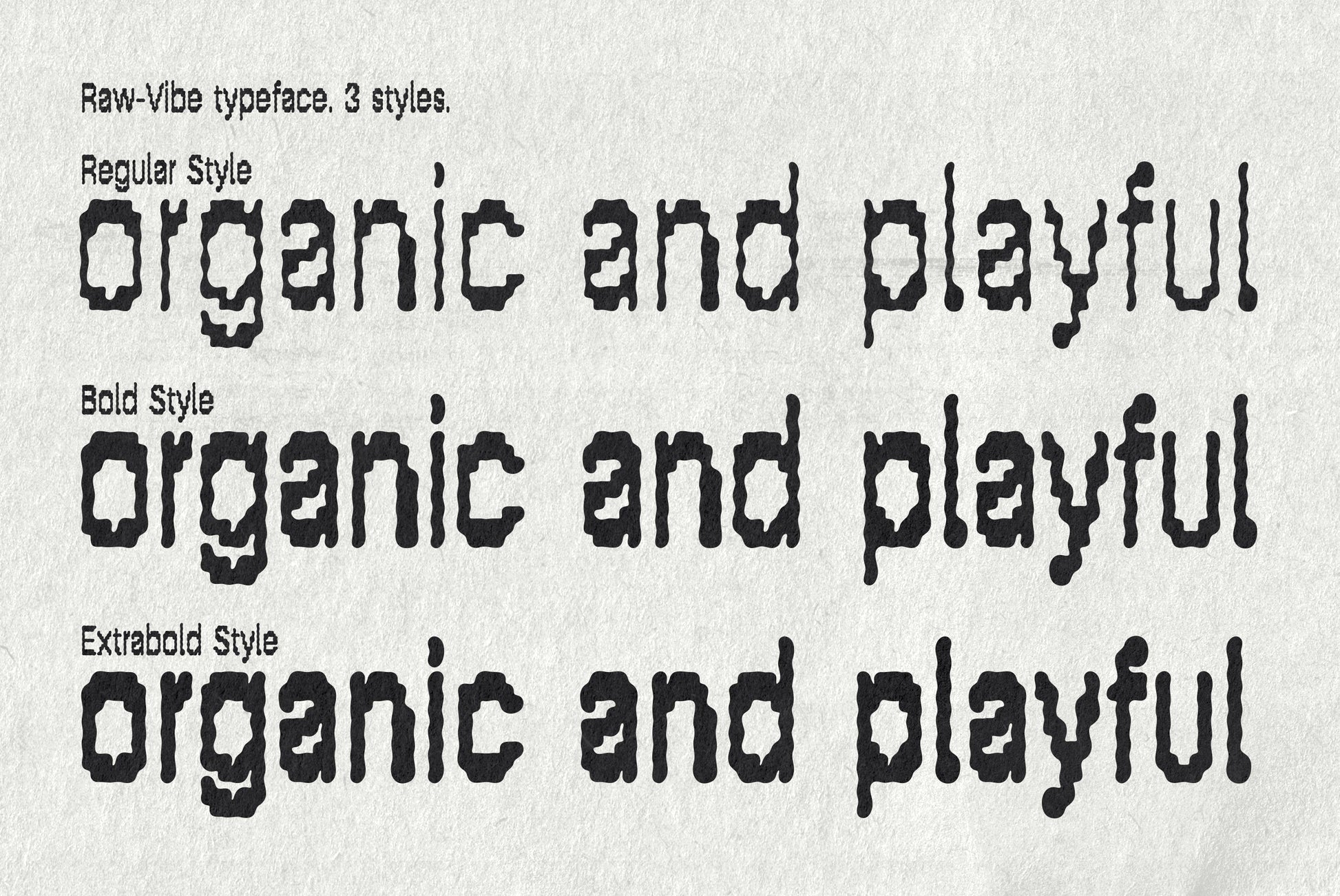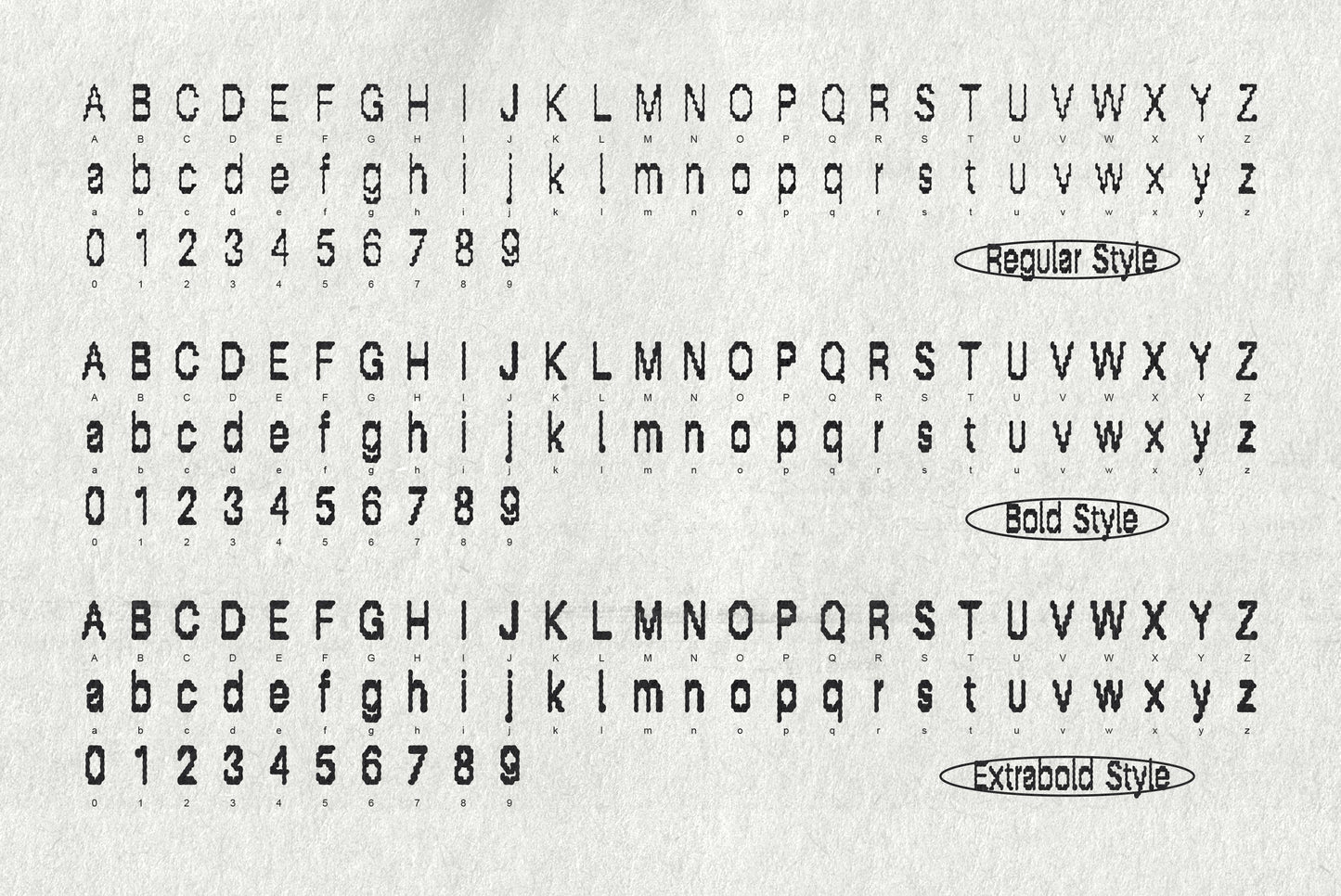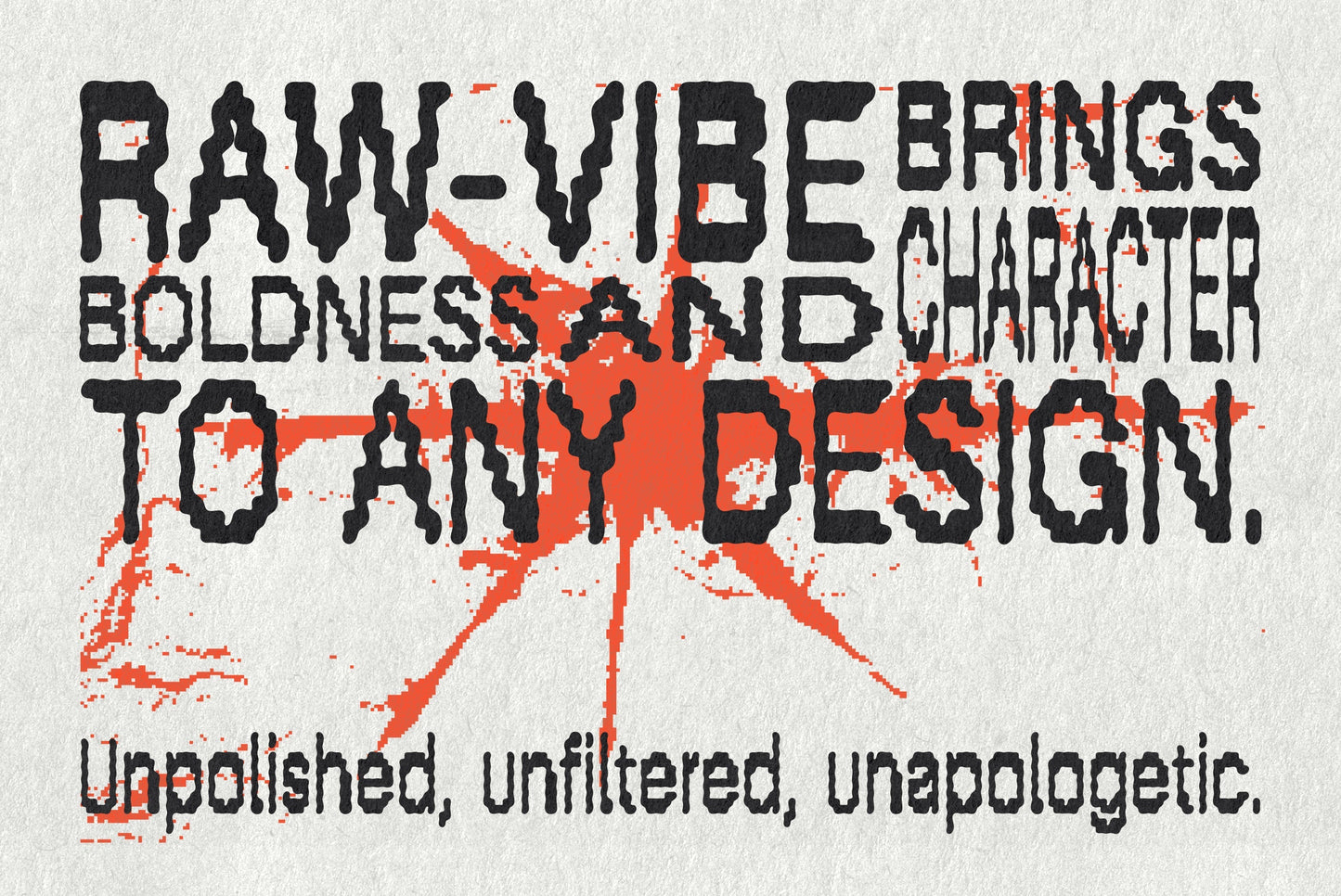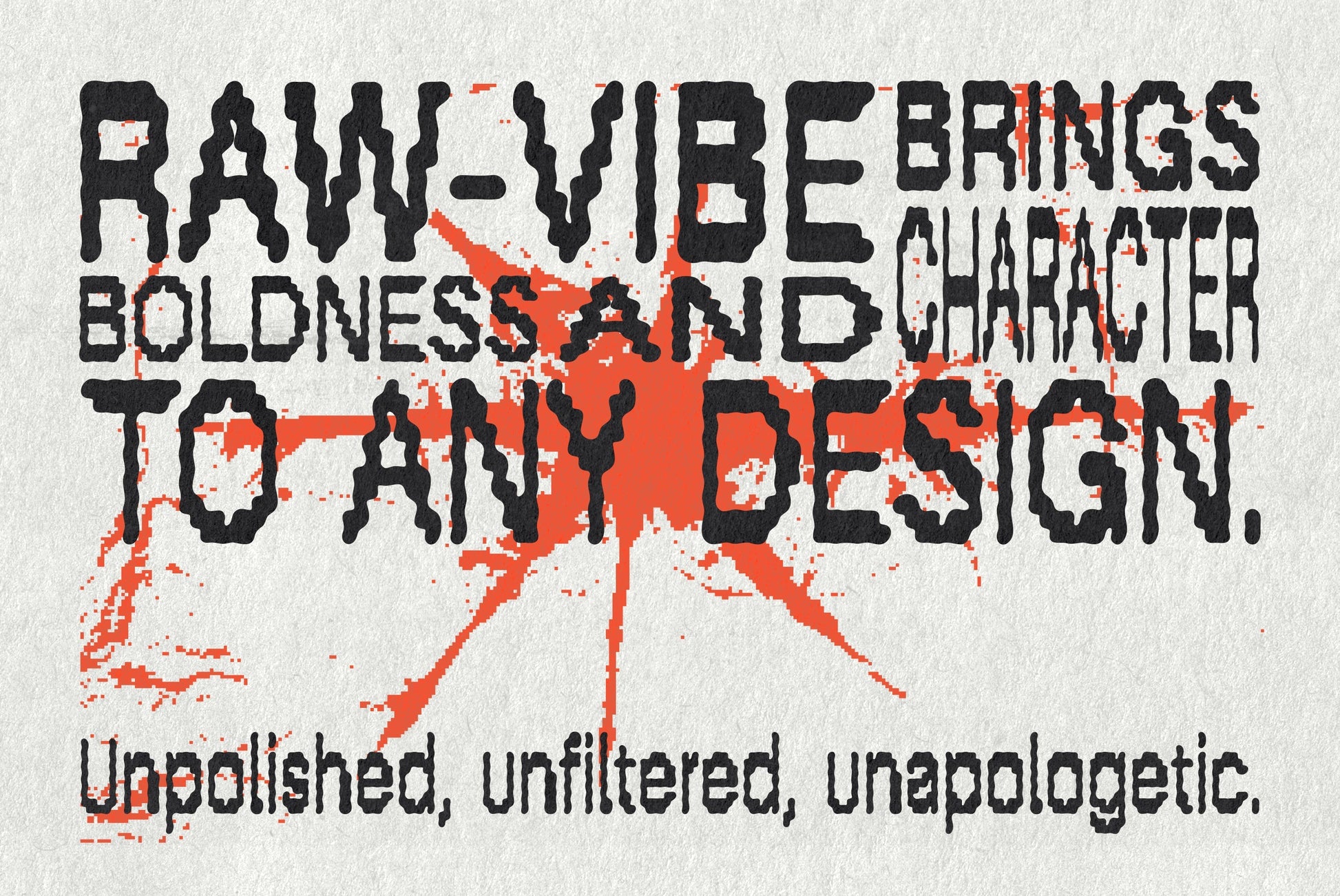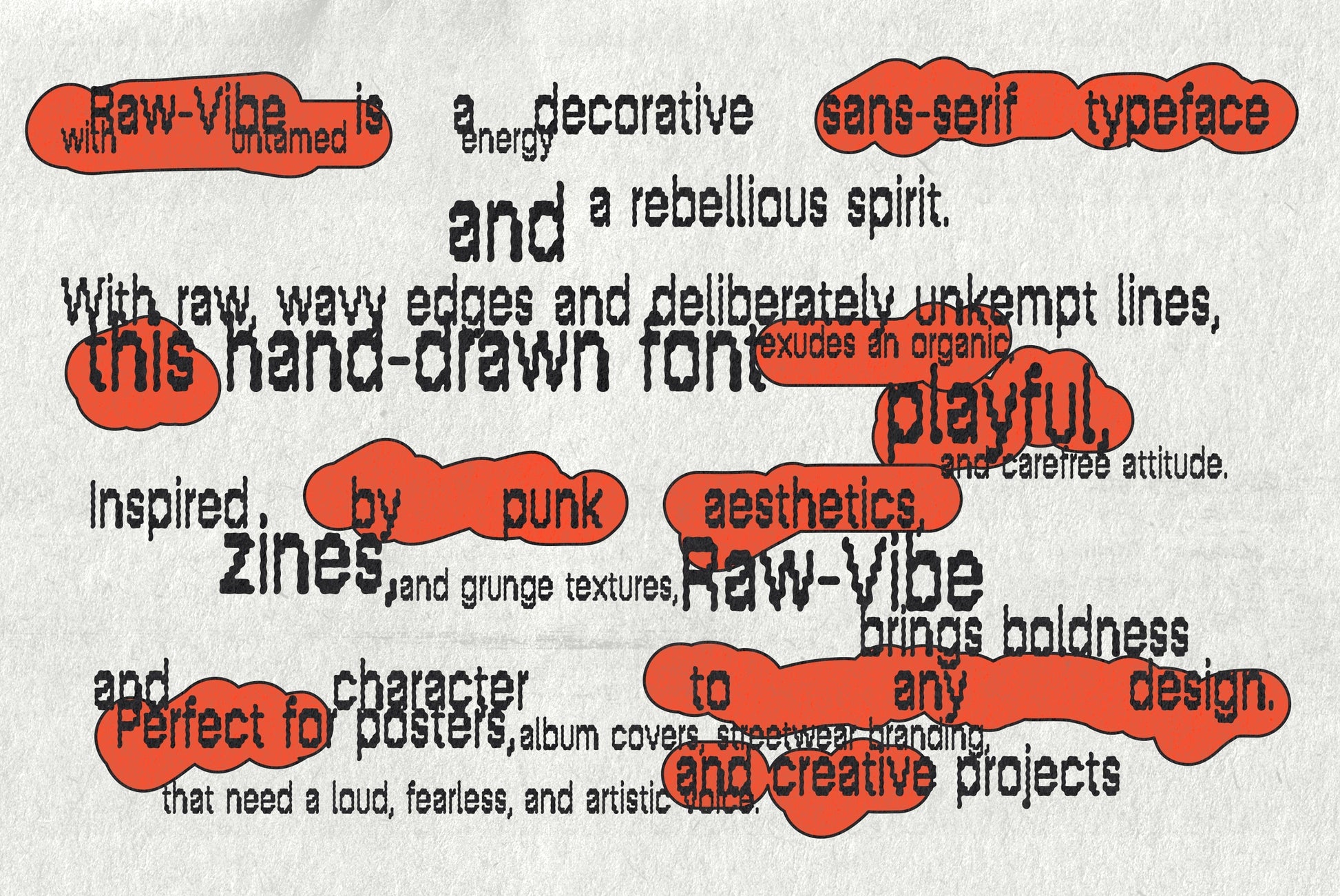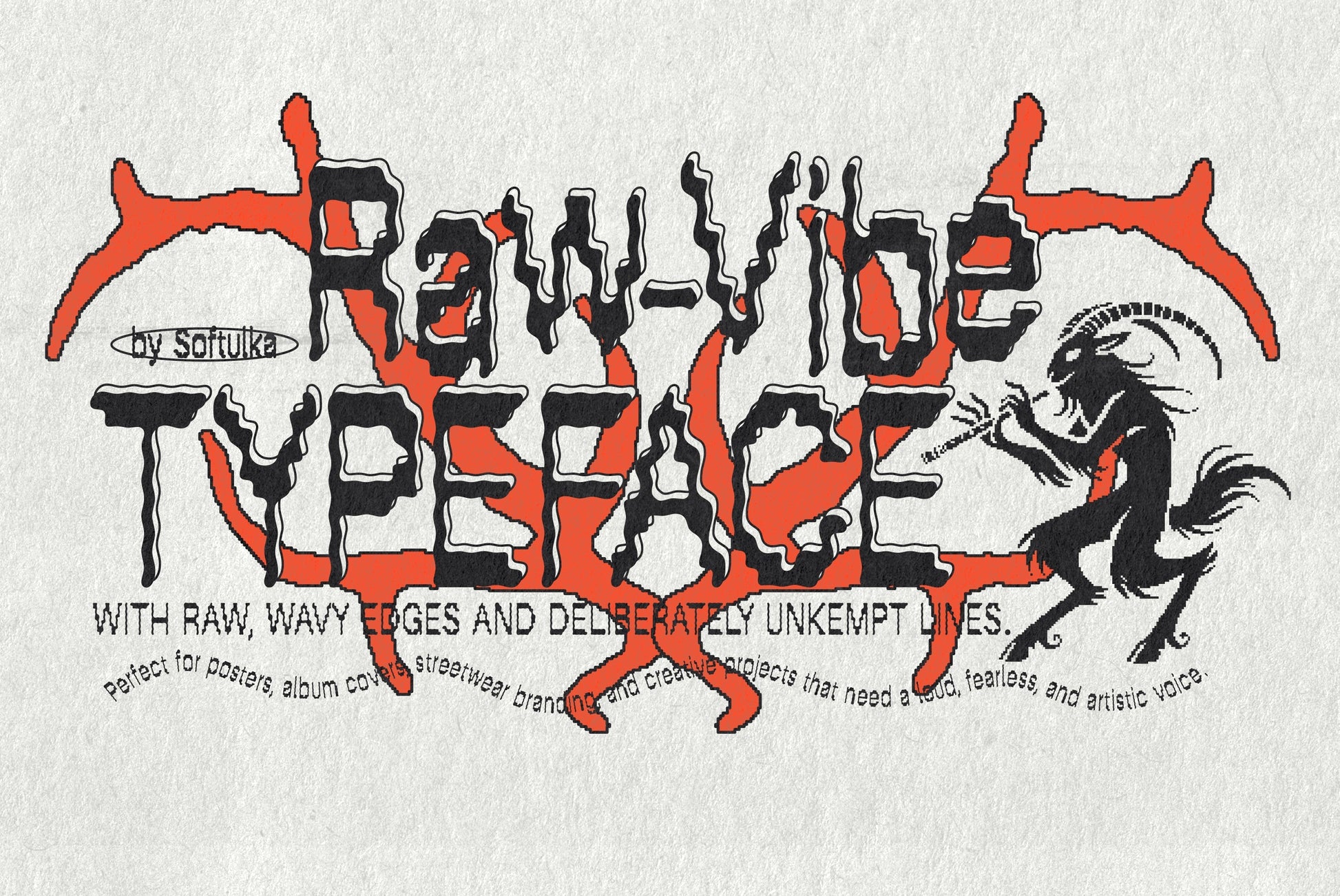
Raw-Vibe is a decorative sans-serif typeface with untamed energy and a rebellious spirit. With raw, wavy edges and deliberately unkempt lines, this hand-drawn font exudes an organic, playful, and carefree attitude. Inspired by punk aesthetics, zines, and grunge textures, Raw-Vibe brings boldness and character to any design. Perfect for posters, album covers, streetwear branding, editorial layouts, and creative projects that need a loud, fearless, and artistic voice. Unpolished, unfiltered, and unapologetic. ✦ What You'll Get: ✦ - 3 OTF files - 3 TTF files - 3 WOFF (WebFont) files - PDF with preview